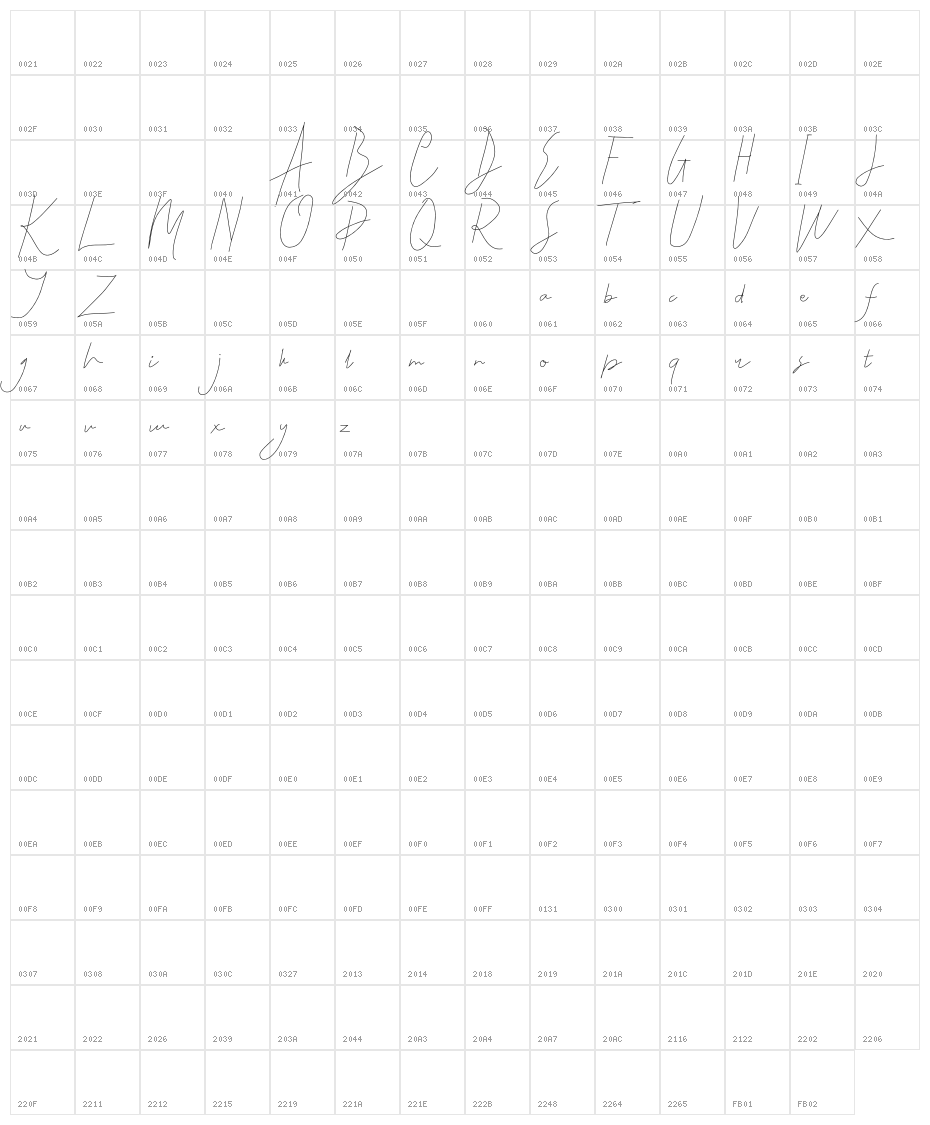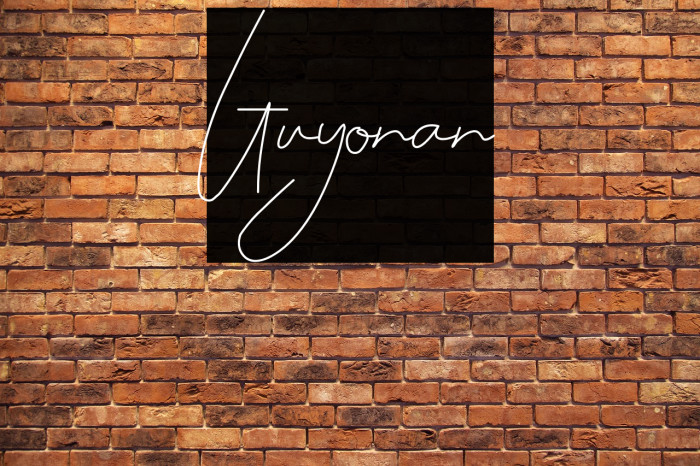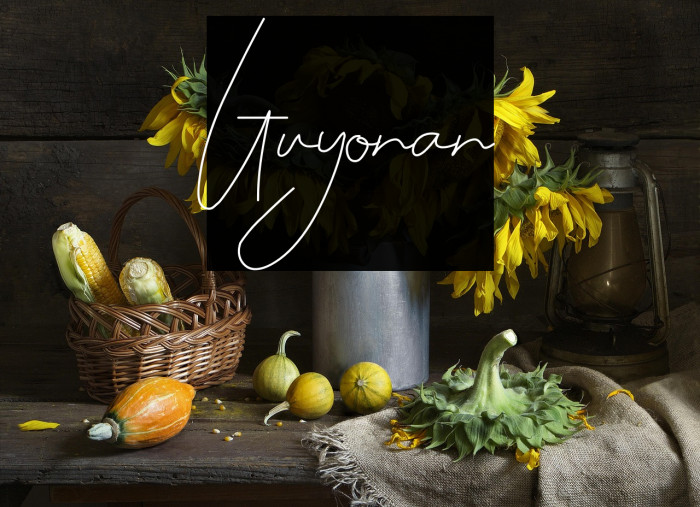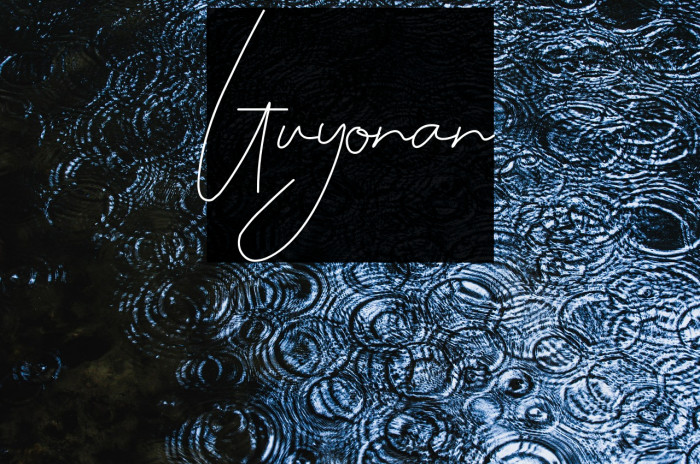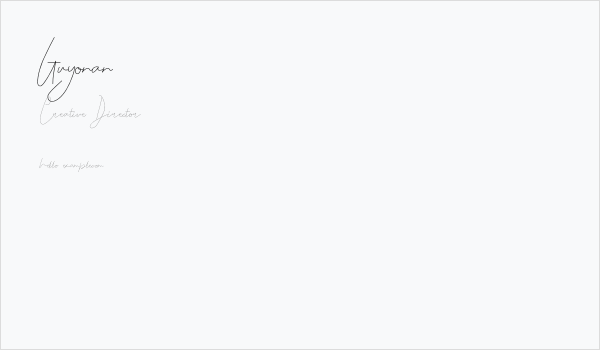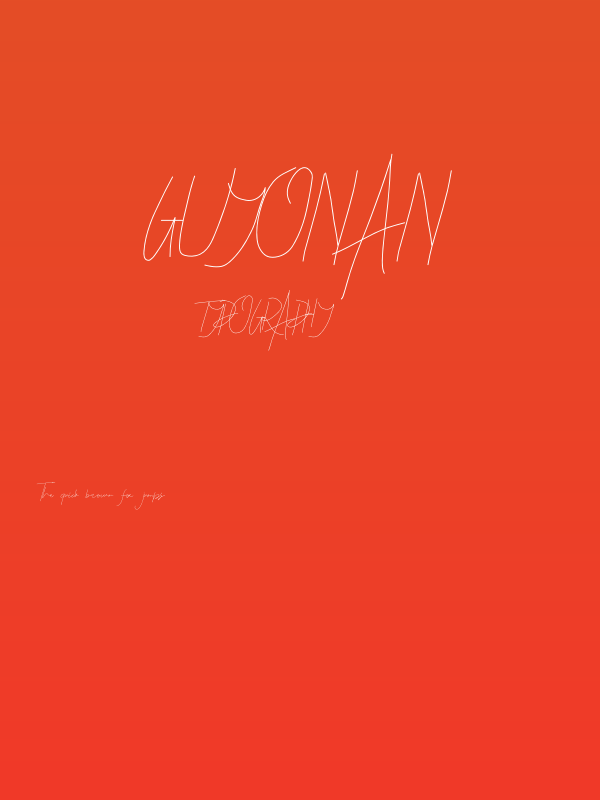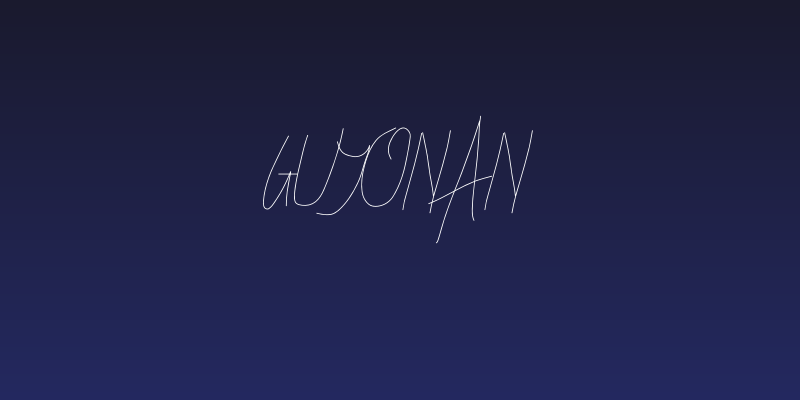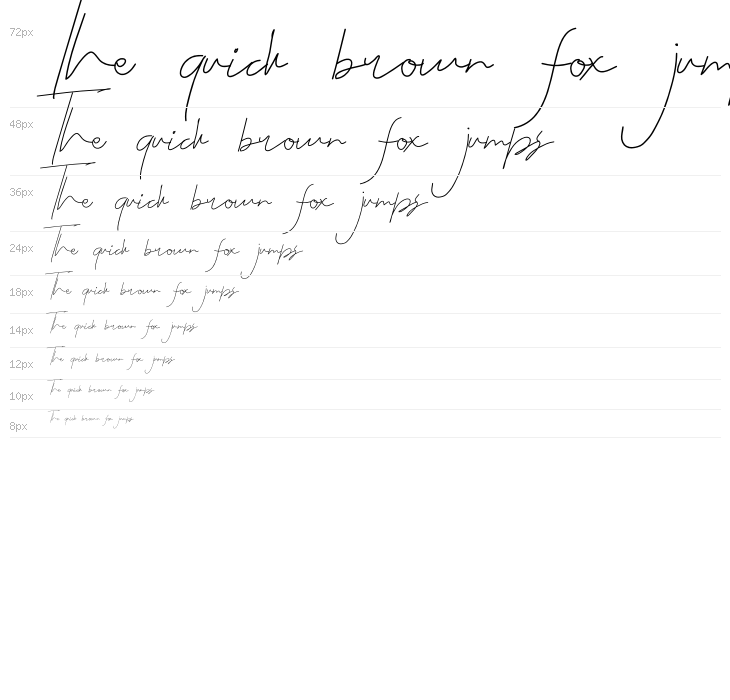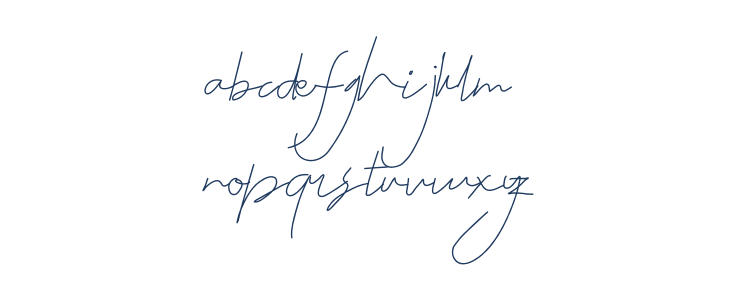
Guyonan Font
Guyonan Description
This font features an elegant, flowing script style that mimics natural handwriting. The characters are connected with smooth, continuous strokes, giving it a personal and artistic feel. The uppercase letters are tall and slender, while the lowercase letters are more compact, maintaining a consistent flow throughout. The overall appearance is sophisticated, with a touch of whimsy, making it suitable for creative and expressive projects. The font's thin lines and delicate curves add a sense of grace and fluidity, ideal for designs that require a personal touch.
| Overall Style | Elegant, Artistic |
| Proposed Projects | Ideal for wedding invitations, personal branding, greeting cards, and artistic projects. |